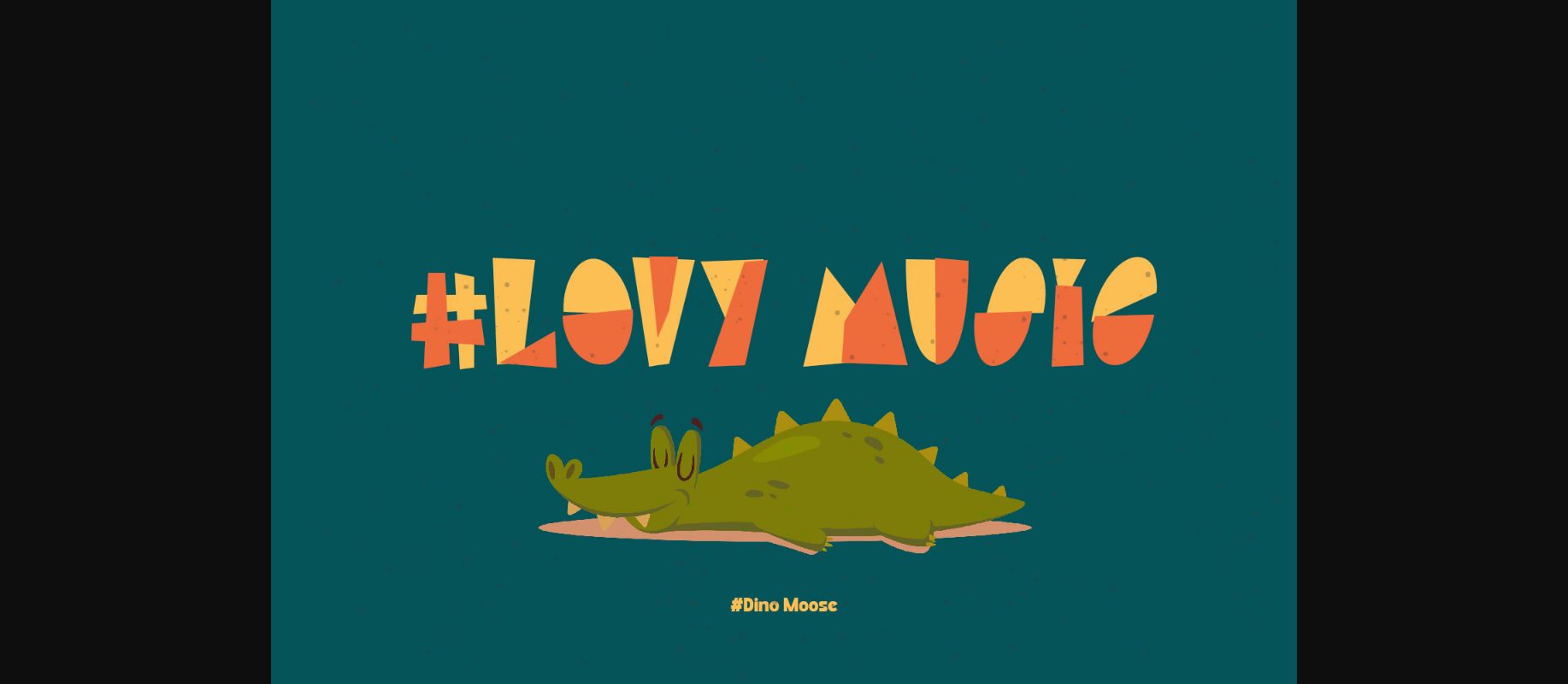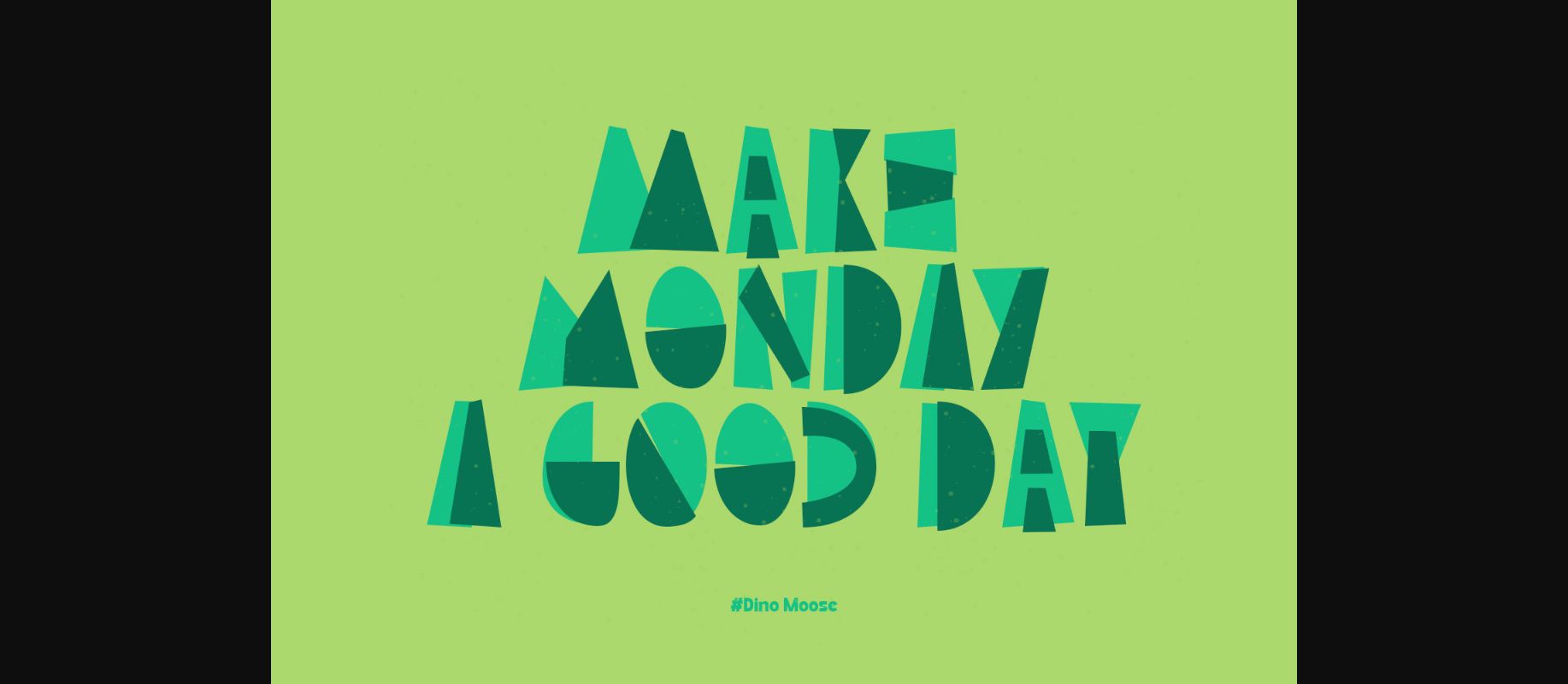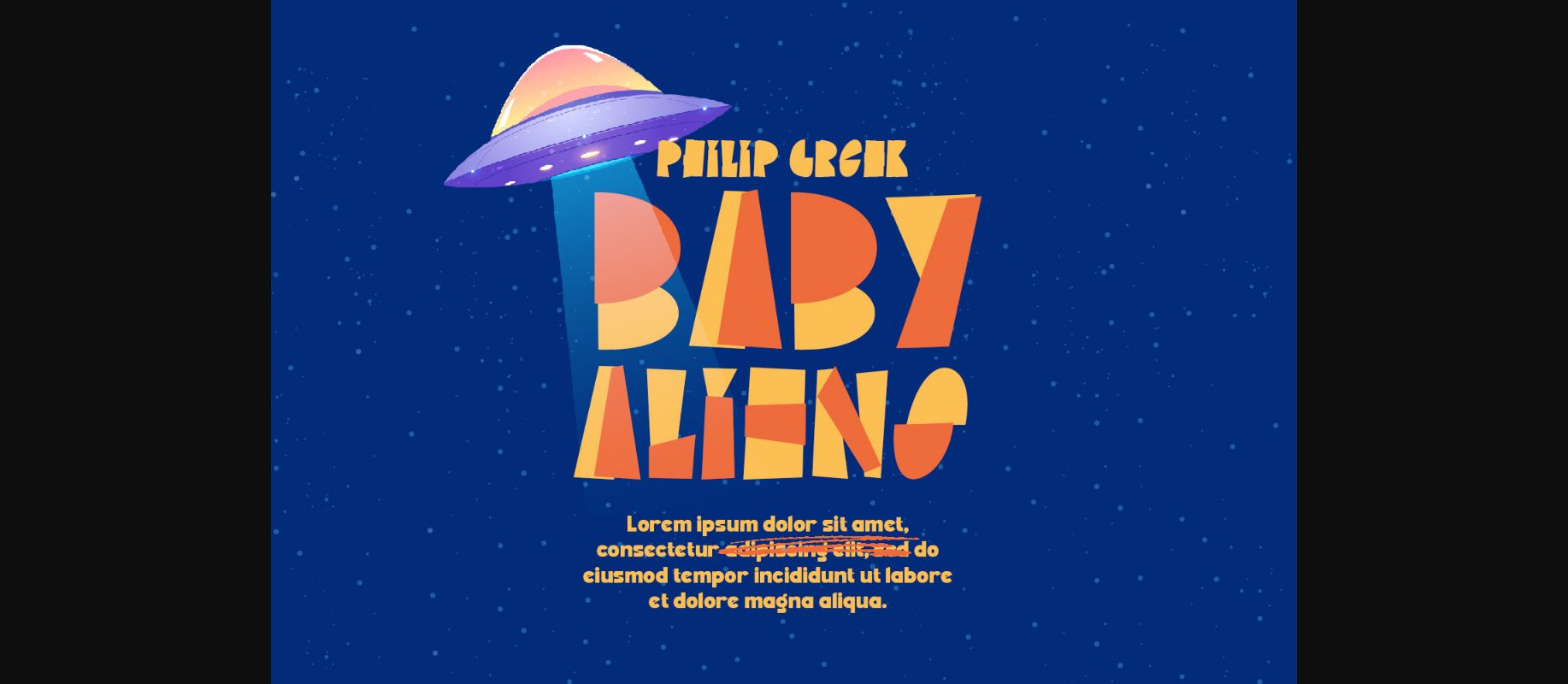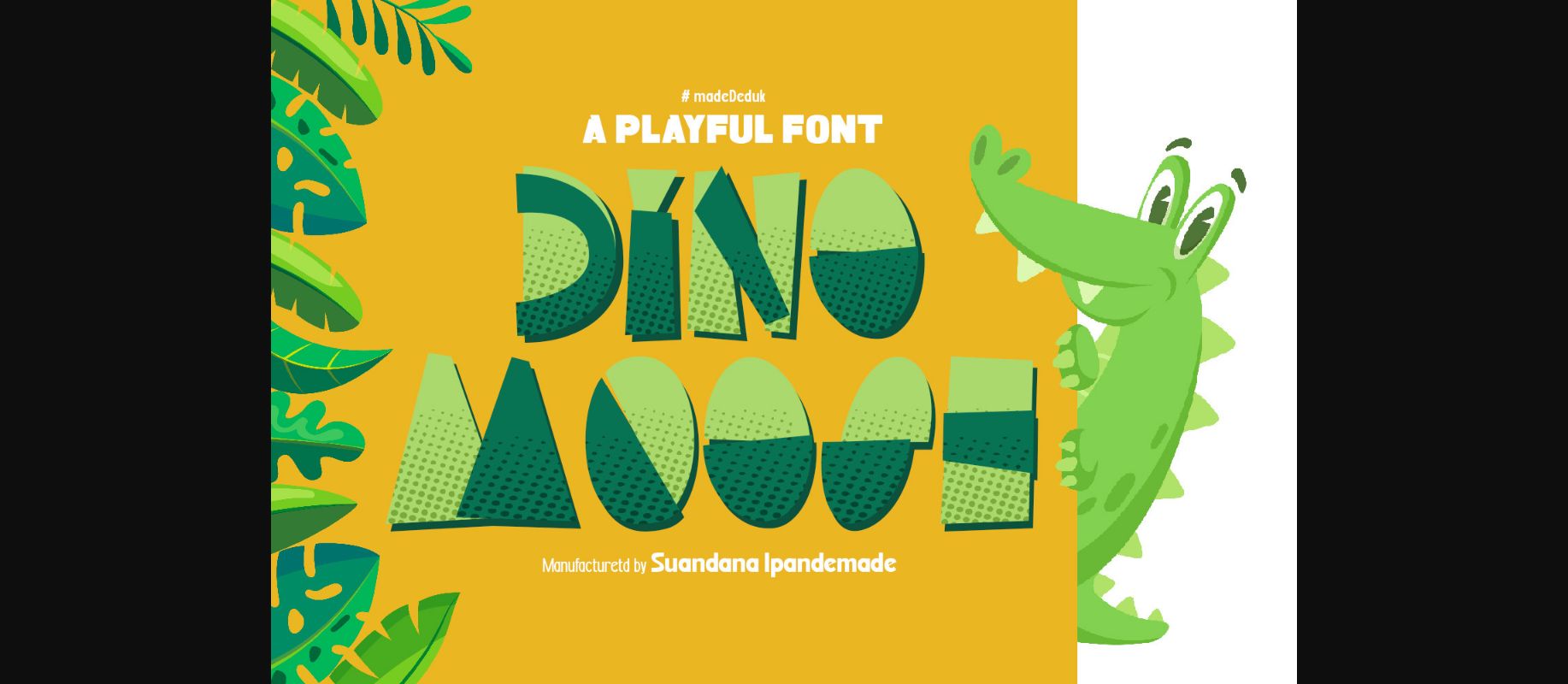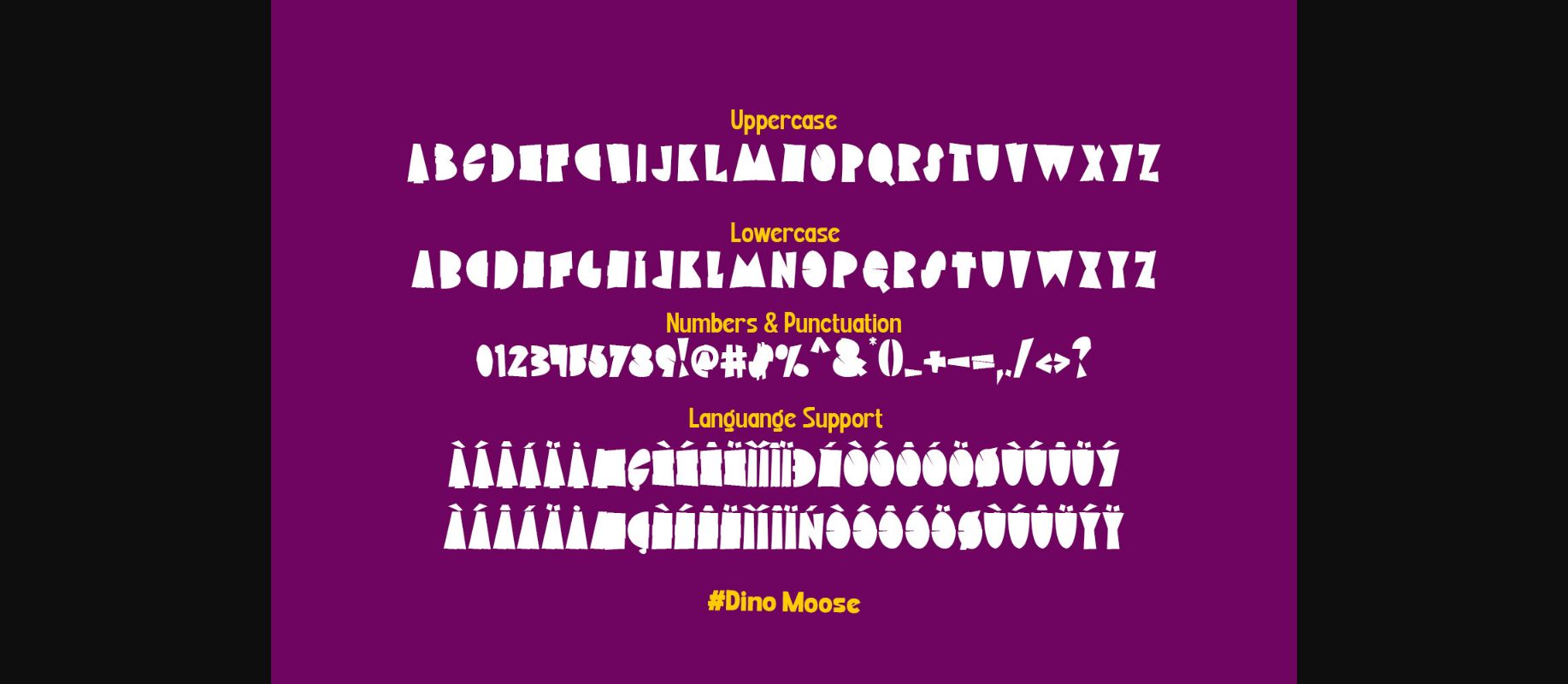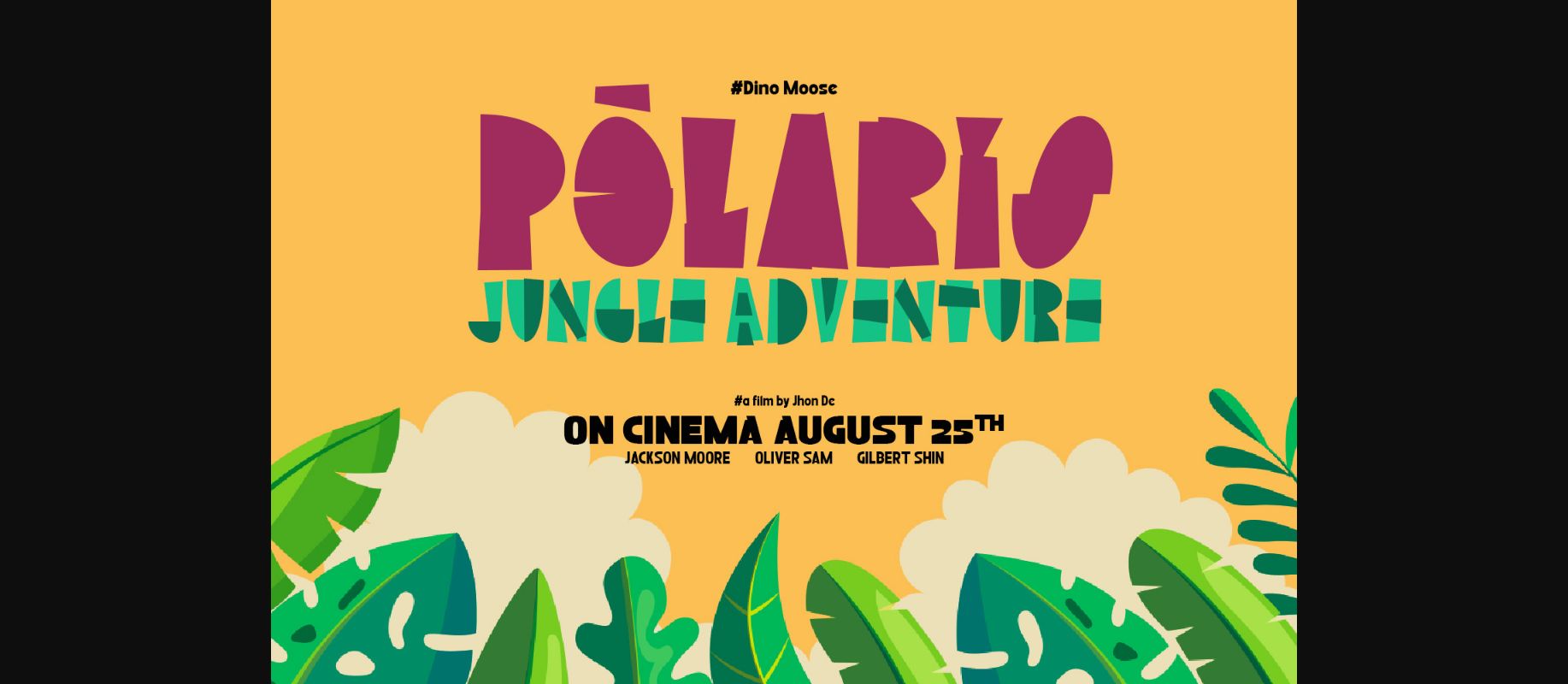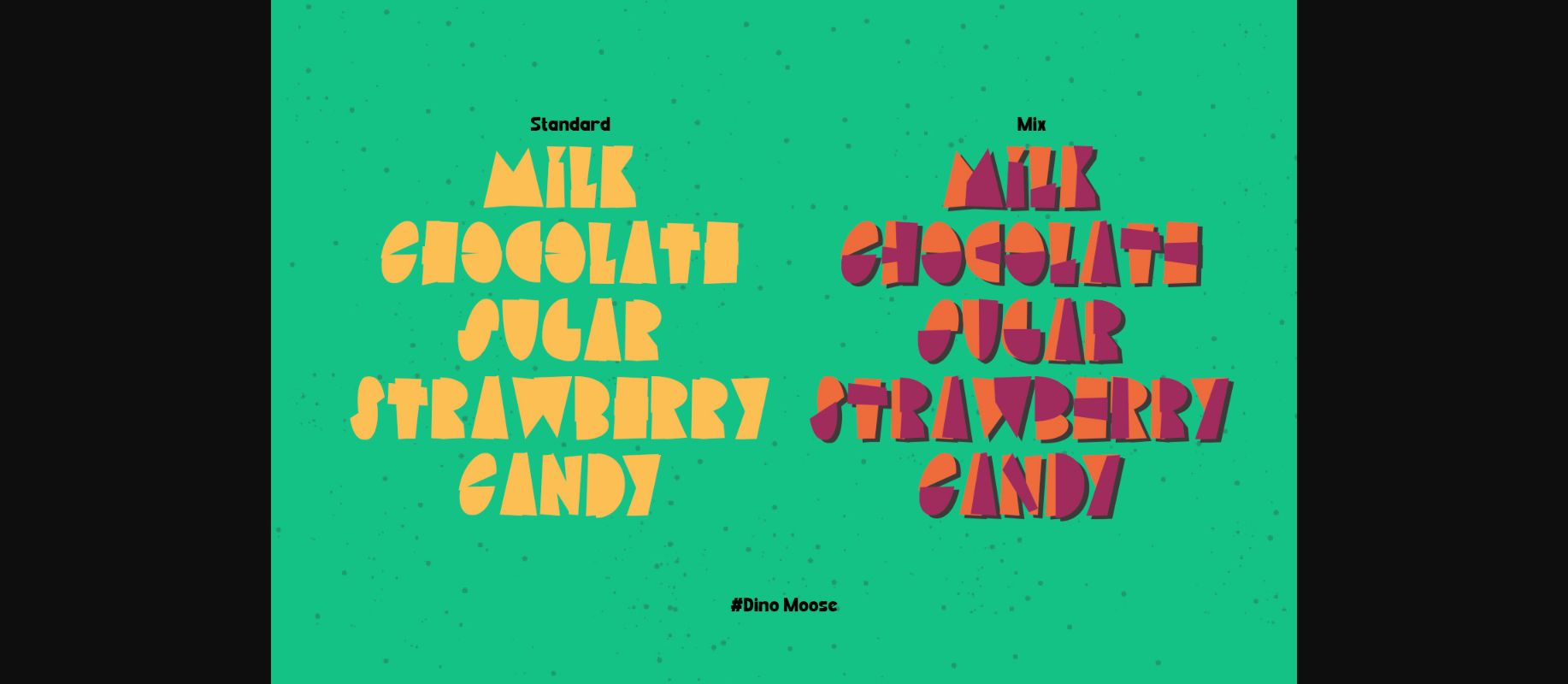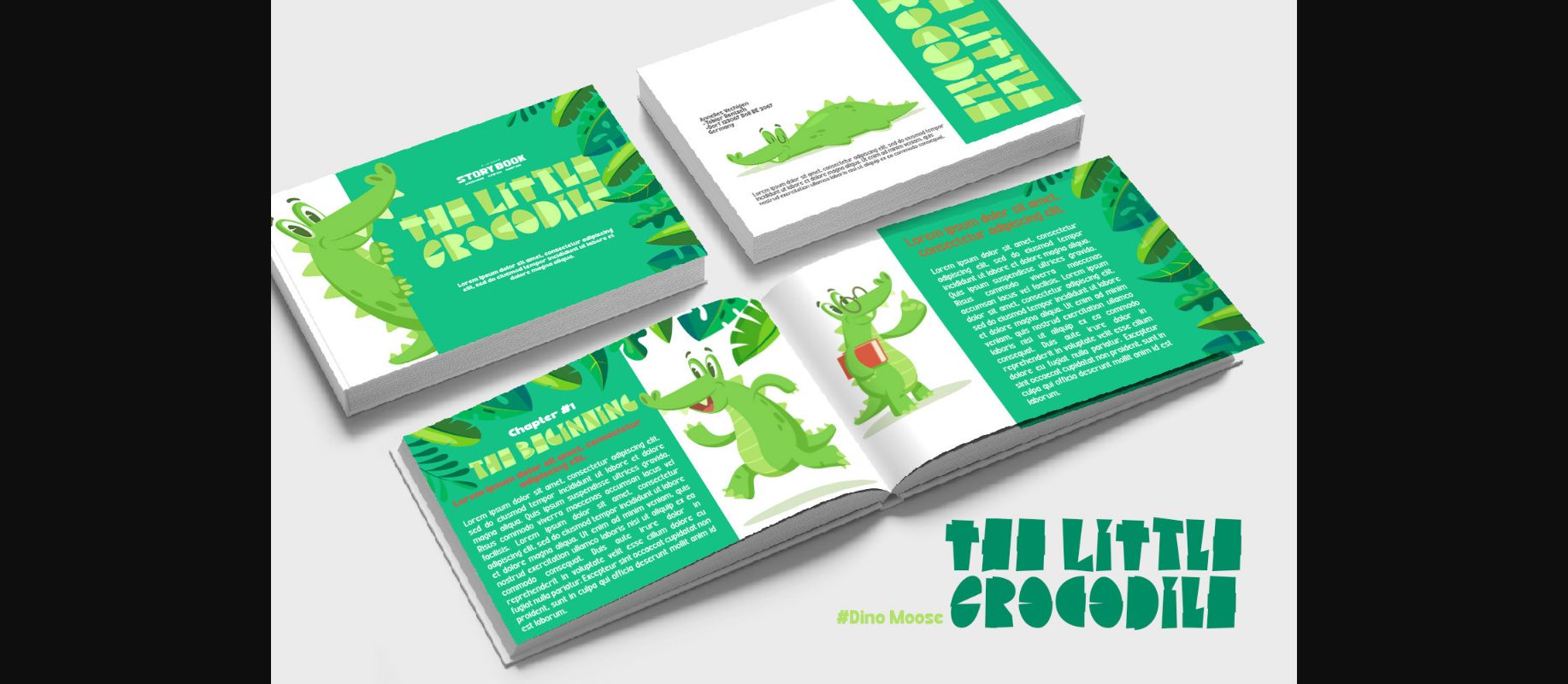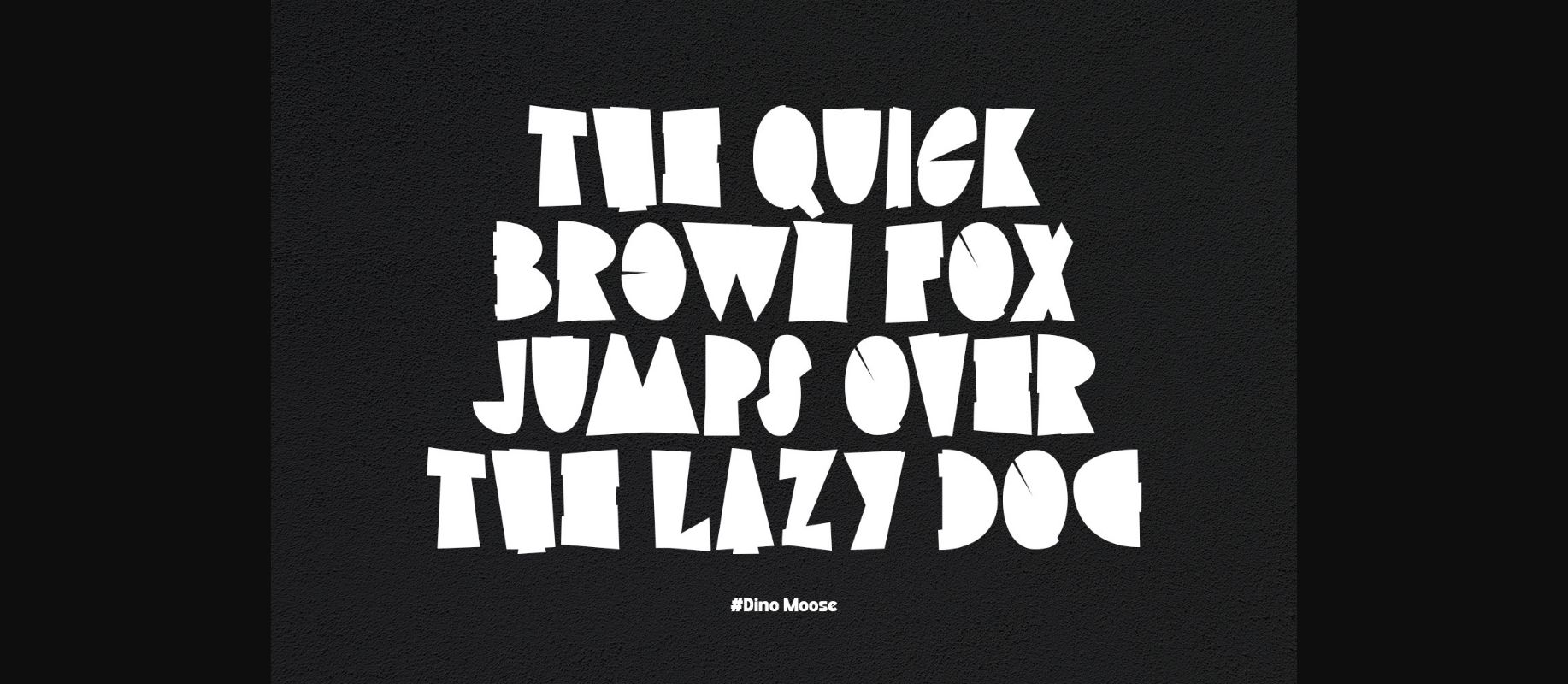
HomeDecorative FontsDino Moose Font Decorative Fonts Dino Moose Font FacebookXPinterestWhatsApp 1 of 11 ... Dino Moose Font Poster 2... Dino Moose Font Poster 3... Dino Moose Font Poster 4... Dino Moose Font Poster 5... Dino Moose Font Poster 6... Dino Moose Font Poster 7... Dino Moose Font Poster 8... Dino Moose Font Poster 9... Dino Moose Font Poster 10... Dino Moose Font Poster 11... About Dino Moose Font Dino Moose is a cool and cartoon-like decorative font. This font is perfect for children themed designs, especially when combined with bright colors. DOWNLOAD NOW People also explored Bhigli Font Welcome Sunday Font Braydon Font Good Mood Font Michelle Stine Script Font Hangtuah Font Best Girl Font Country Street Font Caty Loves Volleyball Font 335 0 TagsDino Moose Font Previous articleGhost FontNext articleHallow Candies Font LEAVE A REPLY Cancel reply Comment: Please enter your comment! Name:* Please enter your name here Email:* You have entered an incorrect email address! Please enter your email address here Website: Save my name, email, and website in this browser for the next time I comment. Personal Use Free Jellia Personal Use Free Read more about this font Dandelions Bloom Personal Use Free Read more about this font Jilliant Personal Use Free Read more about this font Amellis Path Personal Use Free Read more about this font BLOG Using Fonts in Digital Marketing: Tips to Strengthen Your Brand Identity In the realm of digital marketing, every visual element plays a crucial role in shaping a brand's identity, and fonts are no exception. The... Where to Buy American Fonts Online in 2024 Transform Your Website: Elevate Your Typography with 7 Best Web Font Generators Free Fonts Risk: Why Free Fonts Can Be Dangerous for Designers